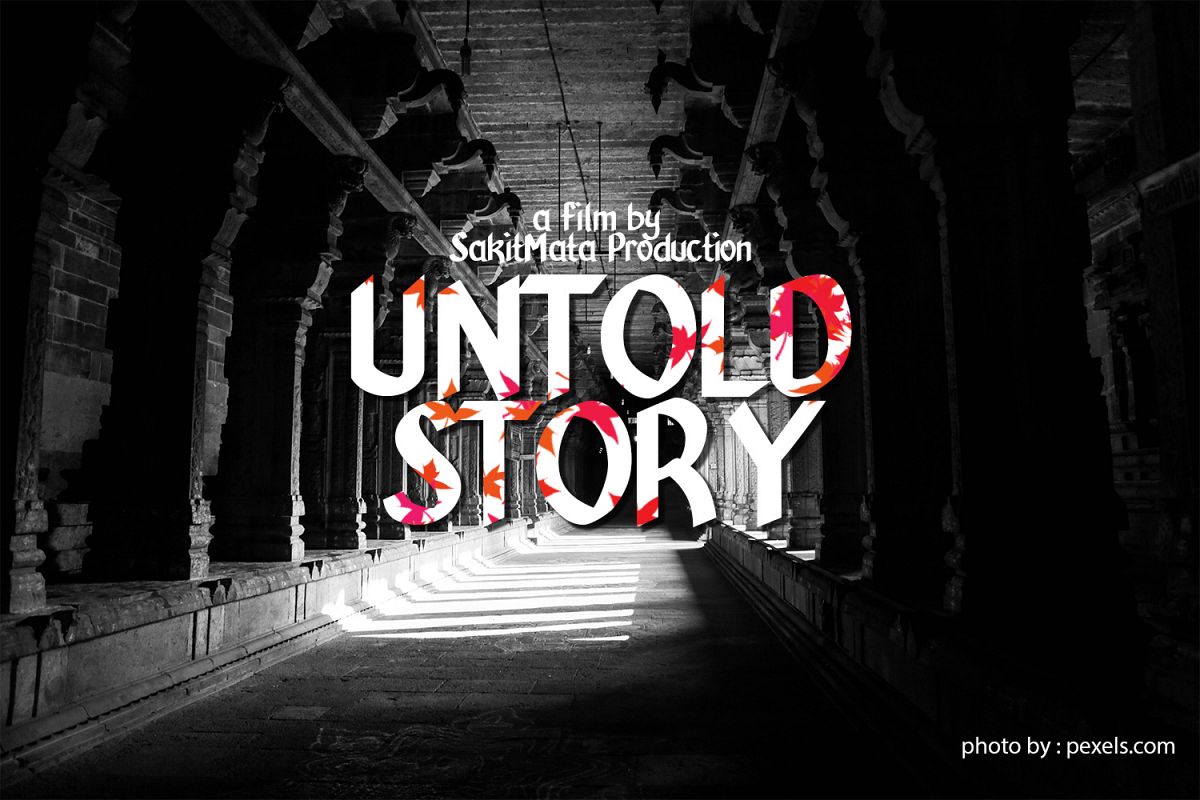
ENIGMALIUM
Enigmalium-Regular
Typeface with gothic style and handdrawn look, suit for Logo, Display, Heading Text. Available with Truetype and Opentype format. You can use it for Posters, Banner Ads, Flyers, etc.